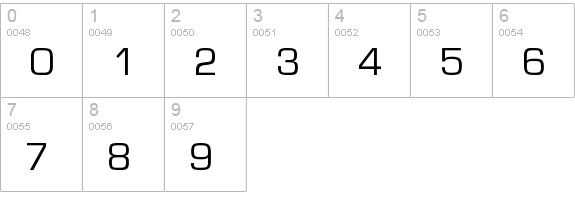
QTEurotype Regular Font Details
QTEurotype Regular is the standard, neutral variant in the QTEurotype typeface family \xE2\x80\x94 well suited to general body text, paragraphs, and standard typographic work.
QTEurotype Regular font is a versatile and stylish typeface that combines elegance with readability. Designed with meticulous attention to detail, it offers a perfect balance between classic and contemporary design elements. This font is perfect for a wide range of design projects, including branding, advertising, packaging, and editorial design. Its clean lines and well-defined letterforms make it highly legible even at smaller sizes, ensuring that your message will be conveyed effortlessly. QTEurotype Regular font exudes a sense of professionalism and sophistication, making it an ideal choice for corporate materials and professional documents. Whether used in print or digital media, it adds a touch of elegance and refinement to any project. The best part? QTEurotype Regular font is available to download for free at FontsMarket.com. You can easily access and use this font to enhance your designs without any cost. Its free availability makes it a valuable asset for designers, allowing them to create stunning visuals without breaking the bank. Don't miss out on this amazing opportunity to elevate your design projects with the QTEurotype Regular font. Download it for free at FontsMarket.com and unlock a world of creative possibilities.